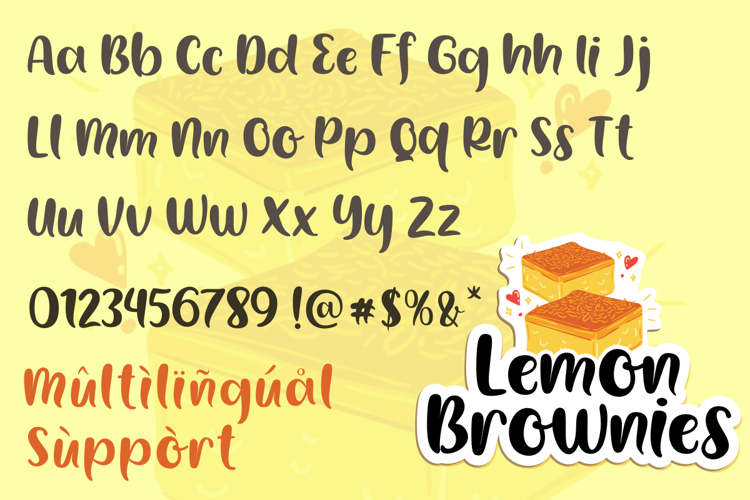
Lemon Brownies Font
Lemon Brownies is a bold and friendly handwritten font. It works great for posters, quotes, logos, product packaging, brochures, social media, and much more!